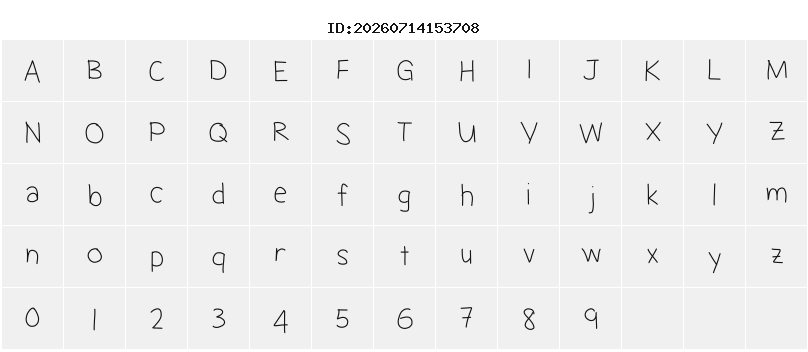
Jacquelyn's Messy Hand Preview
• Font Name: Jacquelyn's Messy Hand
• Full Font Name: Jacquelyn's Messy Hand
About Jacquelyn's Messy Hand.ttf
Jacquelyn's Messy Hand.ttf is a modern, elegant sans-serif font designed for ultimate readability and visual harmony. Perfect for branding, headlines, web design, and print materials.